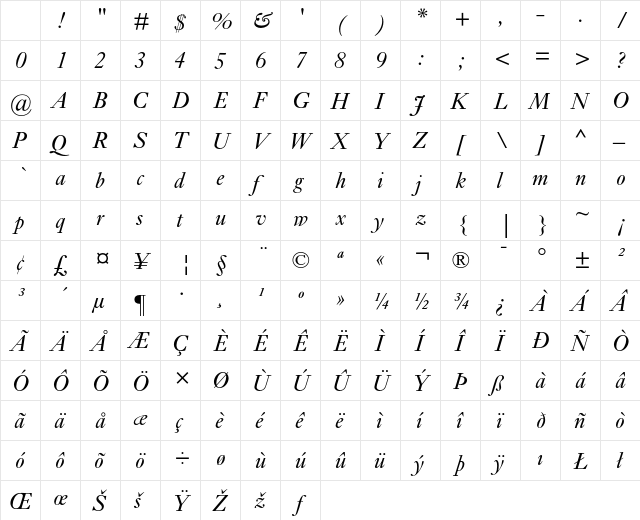
Ehrhardt MT Italic
Design Context for Ehrhardt MT
Ehrhardt MT is a composed and adaptable typeface that performs quietly and consistently across a wide range of design contexts. The slanted form adds forward momentum and visual energy.